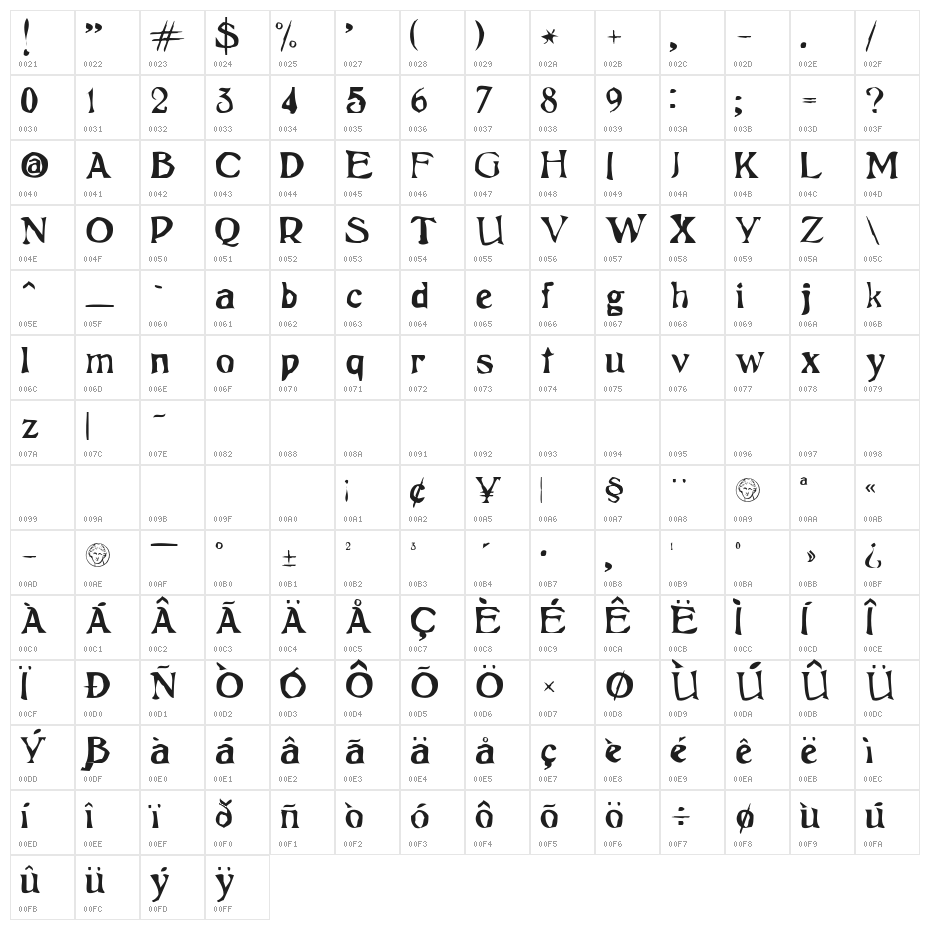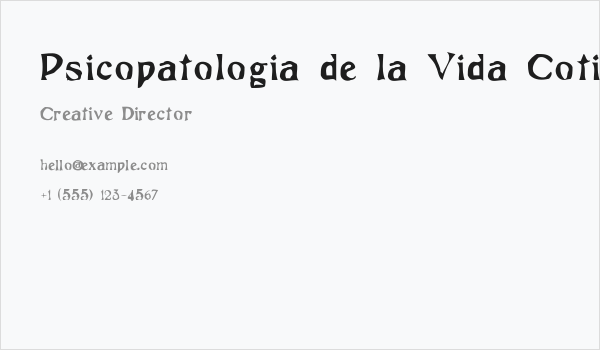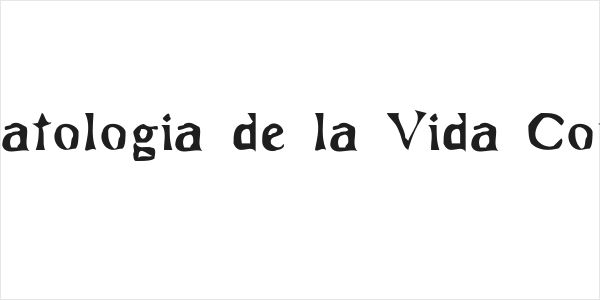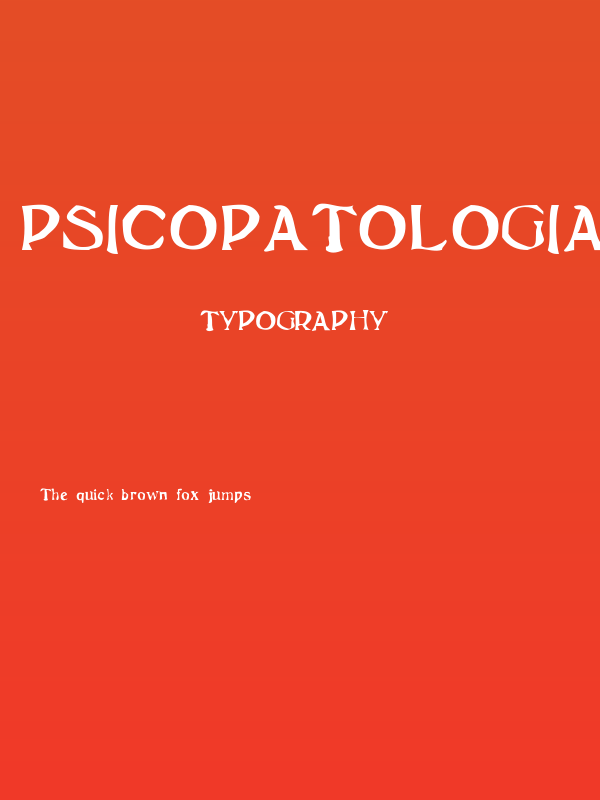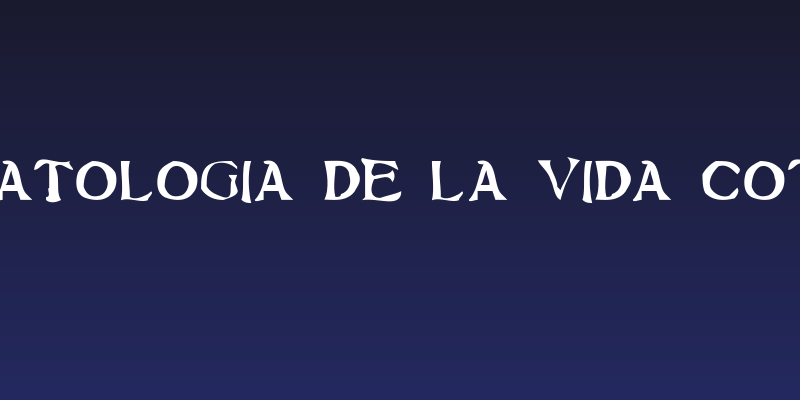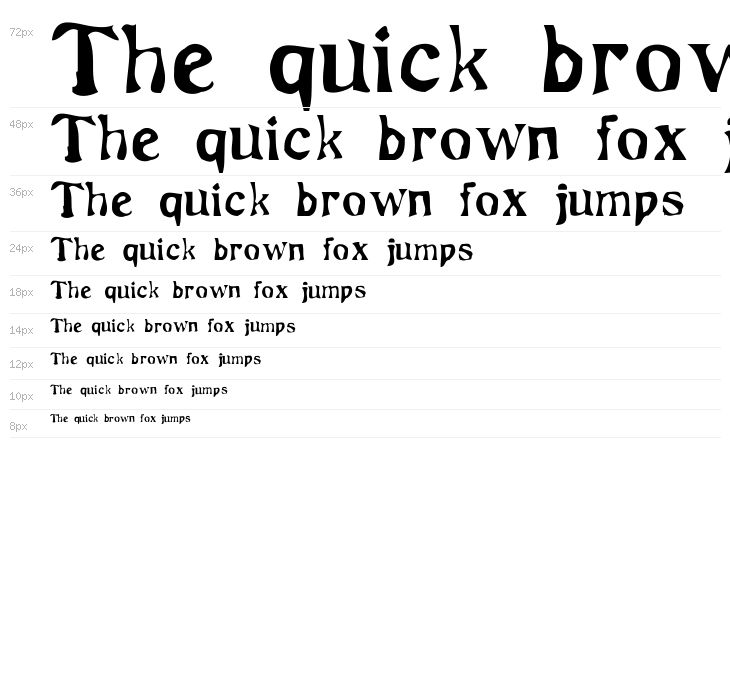
Psicopatologia de la Vida Cotidiana Font
Psicopatologia de la Vida Cotidiana Description
This font features a distinctive and bold style with a hand-drawn appearance, characterized by its irregular and dynamic strokes. The uppercase letters exhibit a unique, slightly gothic influence with sharp edges and varying line thickness, creating a dramatic and artistic look. The lowercase letters maintain a similar style, with a playful yet edgy feel. Numbers and special characters follow the same design principles, ensuring consistency across the typeface. The overall impression is one of creativity and expressiveness, making it suitable for projects that require a standout, unconventional typeface.
| Proposed Projects | Ideal for artistic posters, album covers, book titles, and creative branding projects. |